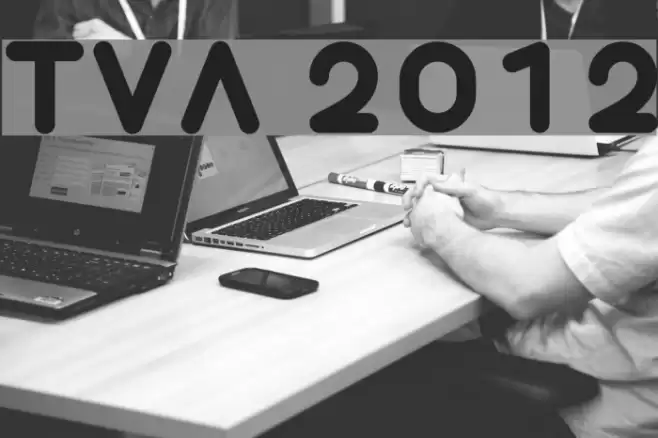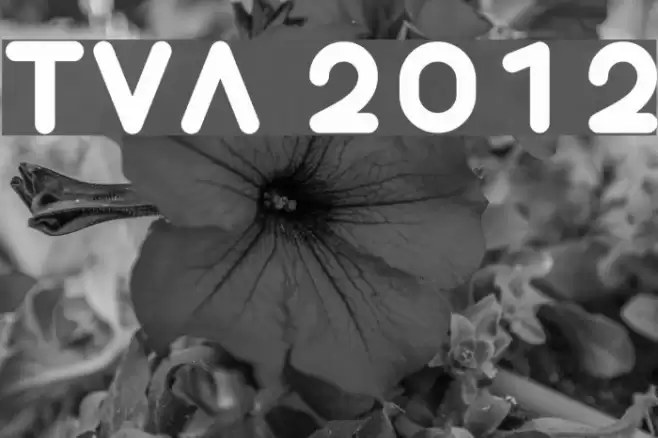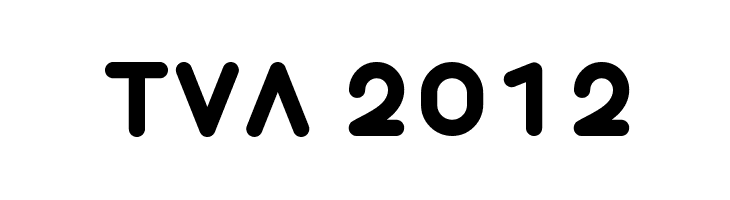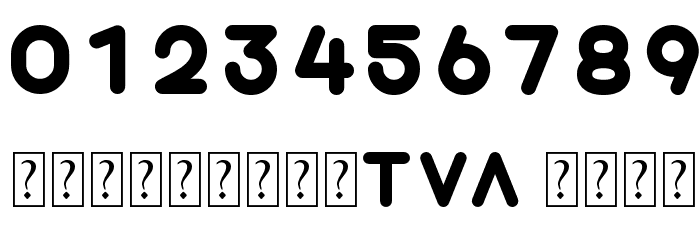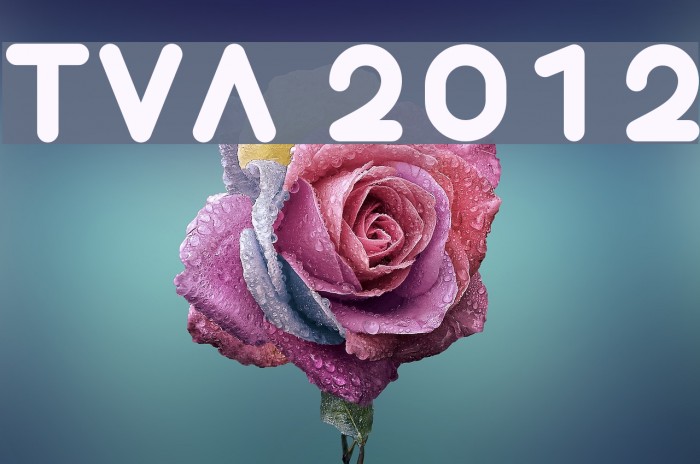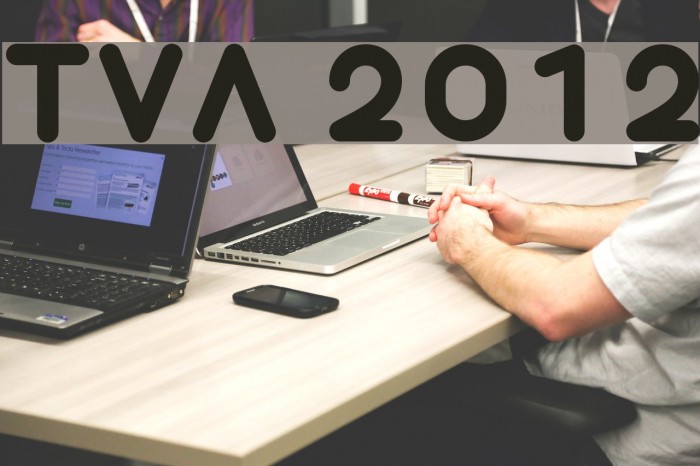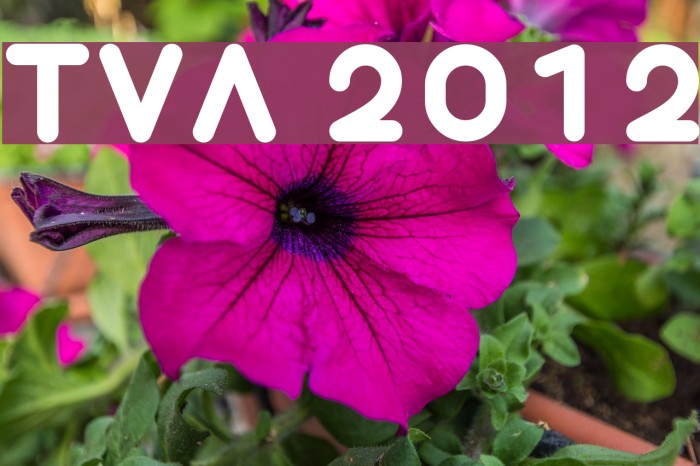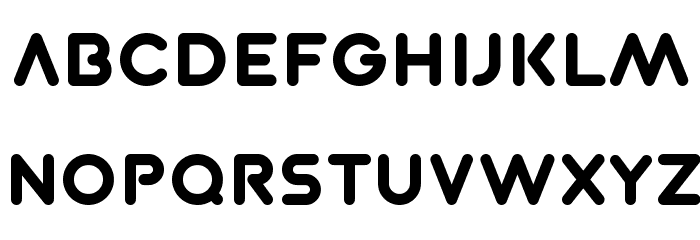
TVA 2012
This font features a bold and rounded style with a modern aesthetic. The characters are uniformly thick, providing a consistent and strong visual presence. The uppercase and lowercase letters maintain a cohesive look, with rounded edges that soften the overall appearance. The numerals are clear and easily distinguishable, matching the style of the alphabet. The font's design is clean and straightforward, making it suitable for various applications where readability and a contemporary look are desired.
A bold, rounded font with a modern and clean design.
- Proposed Projects: Ideal for branding, signage, headlines, and digital media where a modern and approachable look is needed.
- Use Case: Headlines, Logos, Branding